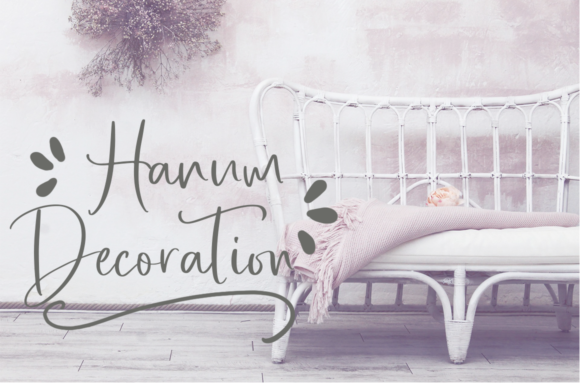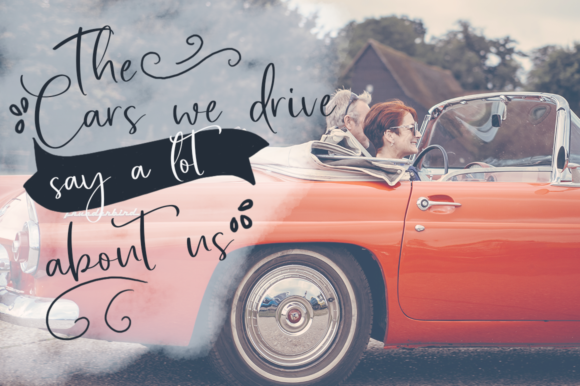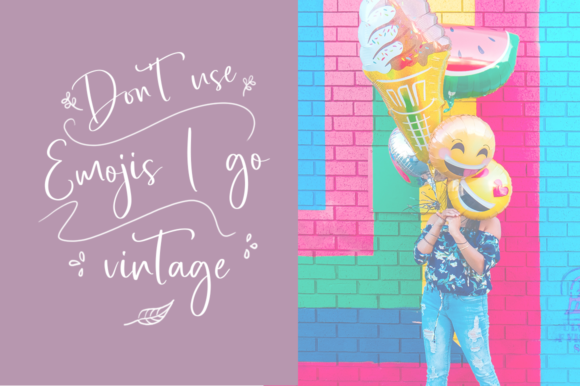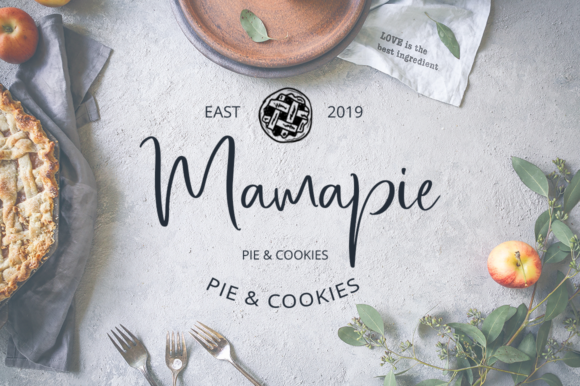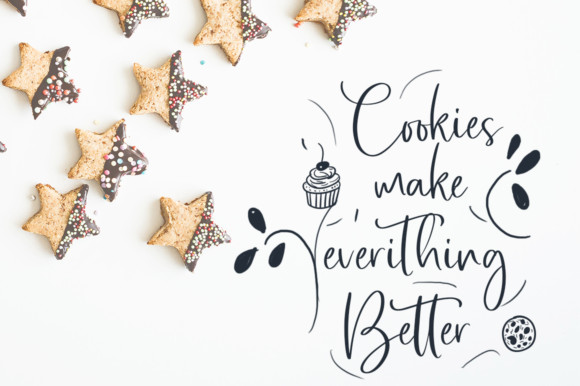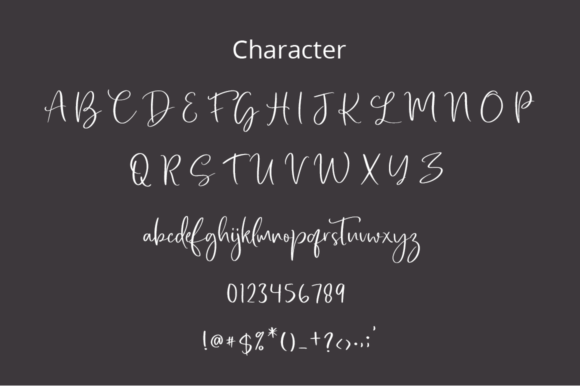
Princes Rapunzel Font
About Princes Rapunzel Font
Princes Rapunzel is an equally cute and elegant handwritten font with a powerful vibe. It will add a romantic touch to any creative project!